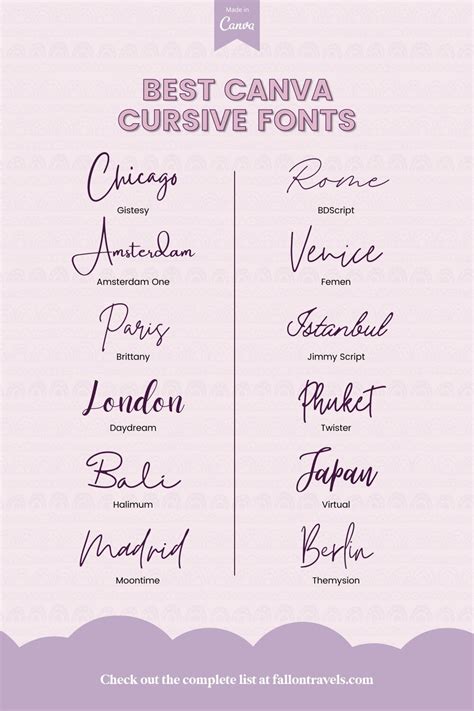
Free Canva Cursive Script Fonts for Designing Winning Projects
Best Cursive Fonts On Canva. Pacifico the first font on our list is pacifico. This font is perfect for adding a playful and casual vibe to your designs.
This font is perfect for adding a playful and casual vibe to your designs. Pacifico the first font on our list is pacifico.
This font is perfect for adding a playful and casual vibe to your designs. This font is perfect for adding a playful and casual vibe to your designs. Pacifico the first font on our list is pacifico.